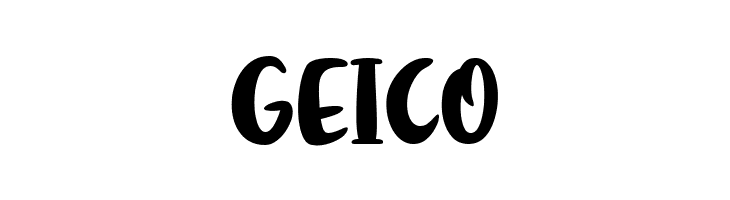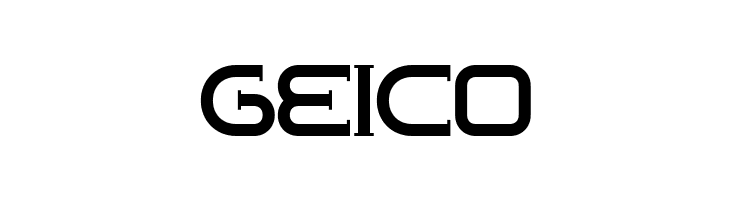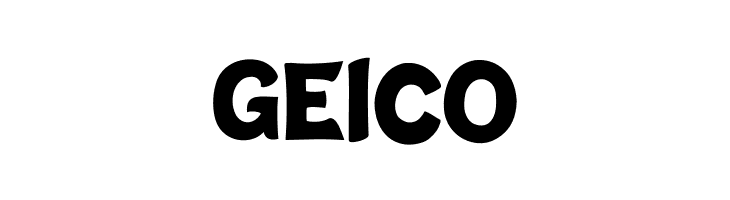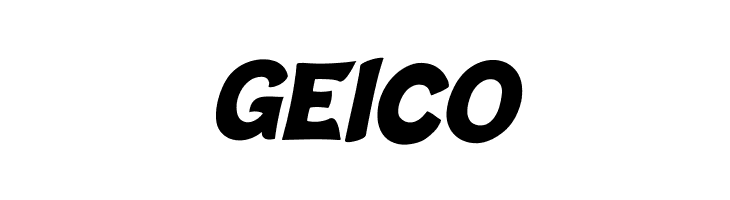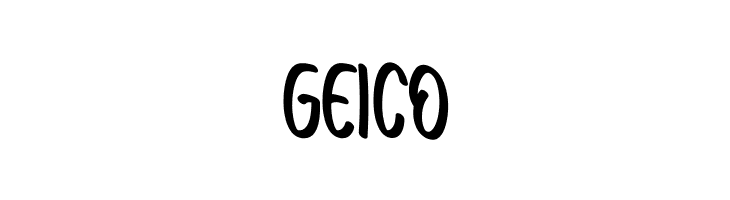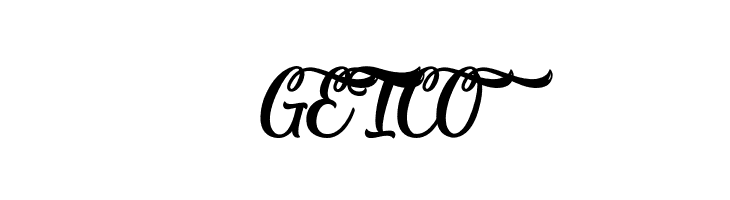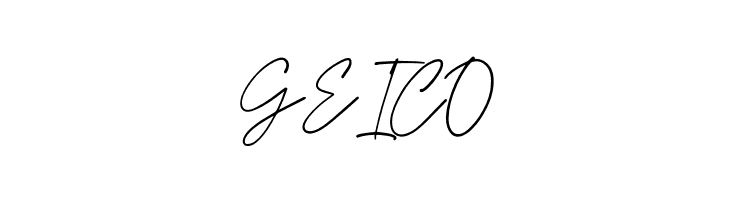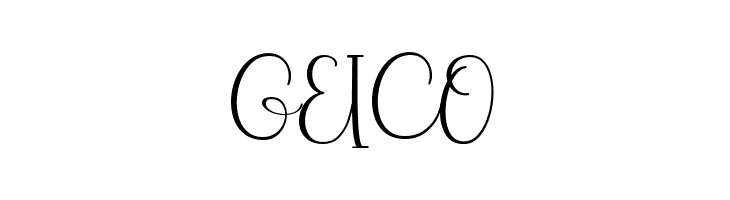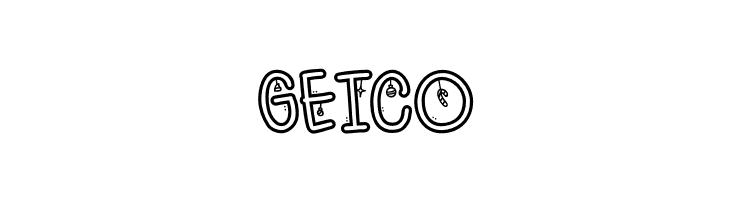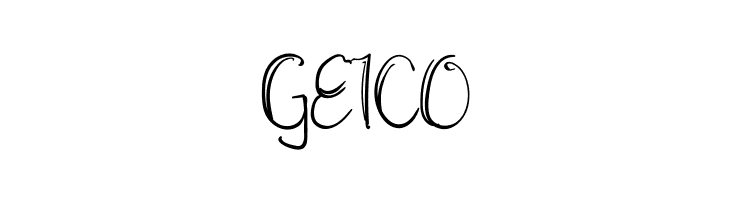
A playful, festive script font with elegant loops and holiday-themed elements.
A whimsical and elegant handwritten script font with flowing lines and artistic flourishes.
A festive, ornament-adorned font perfect for holiday projects.
An elegant calligraphy font with flowing strokes and decorative flourishes.
A fluid and elegant handwritten font with a casual yet sophisticated style.
A bold, cursive script font with a hand-drawn, energetic style.
A playful and elegant script font with a handwritten appearance.
A bold, handwritten font with a playful and casual style.
A bold, playful font with rounded, hand-drawn strokes.
A bold, italic font with dynamic, slanted characters and thick strokes.
An elegant script font with flowing, cursive strokes and graceful loops.
A modern, handwritten script font with elegant, flowing lines.
A sophisticated, cursive script font with a flowing, handwritten style.
A lively, modern handwritten font with dynamic strokes and expressive characters.
A casual, handwritten font with dynamic, expressive strokes.
A sophisticated script font with elegant loops and high contrast strokes.
A bold, festive script font with playful holiday icons.
An elegant and artistic script font with flowing, calligraphic letterforms.
A bold, playful handwritten font with a casual and friendly vibe.
A modern, geometric font with clean lines and rounded edges.
A bold, decorative font with a three-dimensional, vintage-inspired style.
A bold, three-dimensional font with a ghostly shadow effect.
A bold, decorative font with an organic, hand-drawn appearance.
A dynamic and fluid script font with elegant cursive strokes and smooth connections.
A bold, calligraphic font with dramatic curves and artistic flair.
A bold, rounded font with a modern and playful style.
A bold, geometric font with a futuristic and modern design.
A bold, geometric typeface with angular shapes and sharp edges.
A bold, chrome-effect font with a modern, metallic appearance.
A bold, geometric font with strong lines and a modern aesthetic.
A bold, decorative font with an inline, three-dimensional style.
A modern, geometric font with bold, angular letterforms and a retro-futuristic vibe.